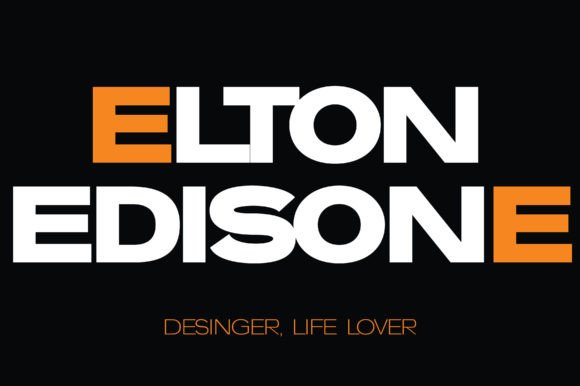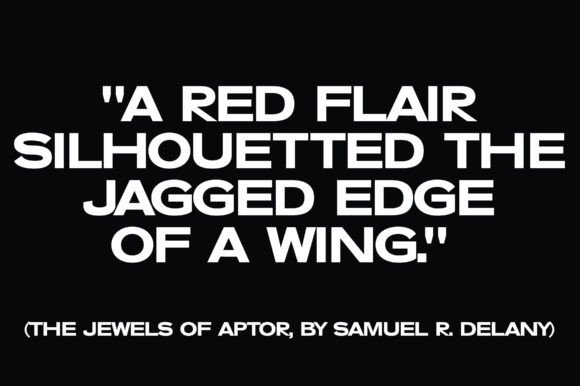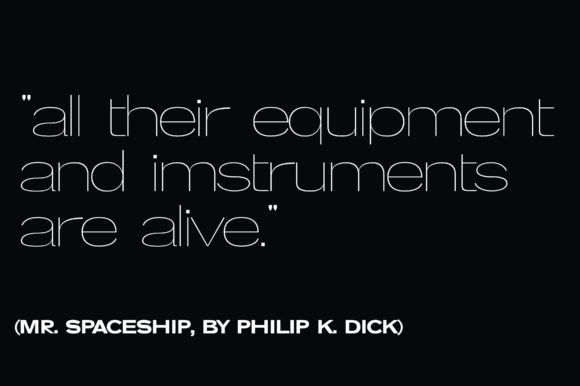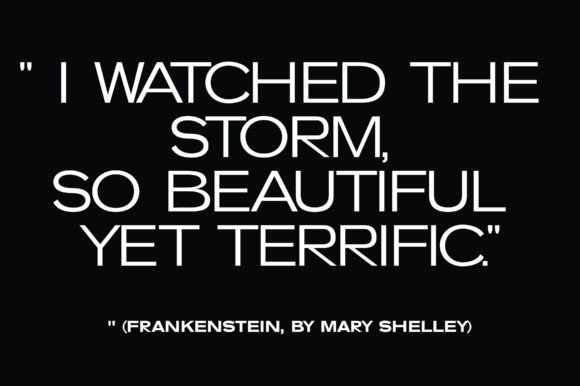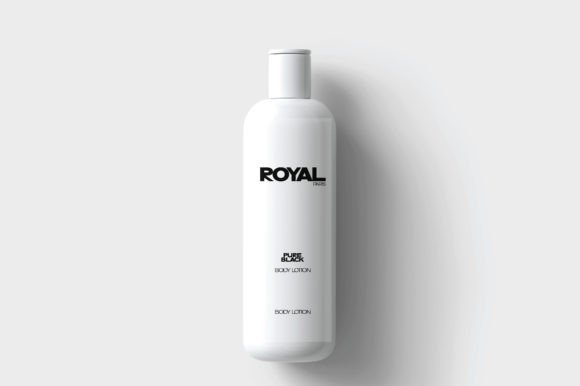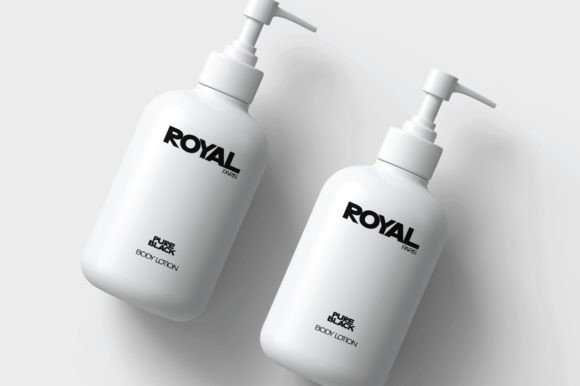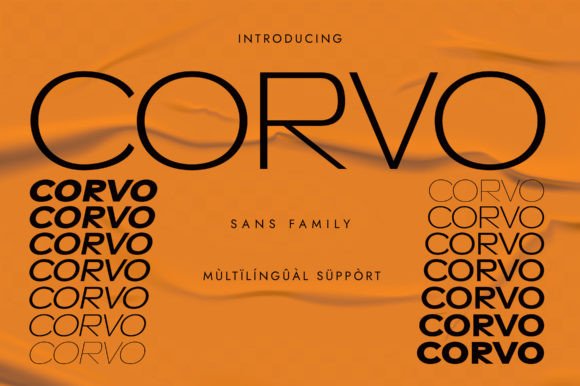
Introducing Corvo Font: The Ultimate Minimalist Grotesque Sans Serif Typeface
In the world of typography, a good font can make all the difference in the success of a design project. For designers and crafters, finding the perfect typeface that combines style, versatility, and functionality can be a daunting task. However, if you’re looking for a font that can elevate your designs and make them stand out, look no further than Corvo Font. In this article, we’ll explore the features and benefits of Corvo Font, and why it’s becoming a favorite among designers.
What is Corvo Font?
Corvo Font is a minimalist grotesque sans serif typeface that is designed to provide a clean and modern look to your designs. Its simplicity and elegance make it an ideal choice for a wide range of design applications, from product design and book publishing to packaging design and magazine layouts. With its seven font weights and corresponding italics, Corvo Font offers a high level of versatility, allowing you to use it in various design contexts.
Key Features of Corvo Font
- Seven font weights: Corvo Font comes with seven font weights, ranging from Thin to Black, allowing you to choose the perfect weight to suit your design needs.
- Corresponding italics: Each font weight has a corresponding italic version, providing you with even more flexibility and options for your designs.
- Minimalist design: Corvo Font features a minimalist grotesque sans serif design, making it perfect for modern and clean designs.
- High legibility: The font is designed to be highly legible, even at small sizes, making it ideal for body text and captions.
Benefits of Using Corvo Font
So, why should you choose Corvo Font for your design projects? Here are just a few benefits of using this versatile typeface:
- Versatility: Corvo Font can be used in a wide range of design applications, from digital designs to print materials.
- Elegance: The font’s minimalist design gives it an elegant and sophisticated look that’s perfect for high-end designs.
- Easy to read: Corvo Font is highly legible, making it ideal for body text and captions.
- Time-saving: With its seven font weights and corresponding italics, you can easily create a cohesive look across your designs without having to use multiple fonts.
Design Applications for Corvo Font
Corvo Font is an incredibly versatile typeface that can be used in a wide range of design applications, including:
- Product design: Use Corvo Font to create modern and clean product labels, packaging, and branding materials.
- Book publishing: Corvo Font is perfect for book titles, headings, and body text, making it an ideal choice for fiction and non-fiction books.
- Packaging design: The font’s minimalist design makes it perfect for packaging design, including product labels and instructions.
- Magazine layouts: Corvo Font can be used to create clean and modern magazine layouts, including headings, subheadings, and body text.
In conclusion, Corvo Font is a versatile and elegant typeface that is perfect for designers and crafters looking for a modern and clean sans serif font. With its seven font weights and corresponding italics, Corvo Font offers a high level of flexibility and functionality, making it an ideal choice for a wide range of design applications. Whether you’re designing products, books, packaging, or magazines, Corvo Font is sure to become your go-to font. Add it to your font library today and experience the difference it can make in your designs.